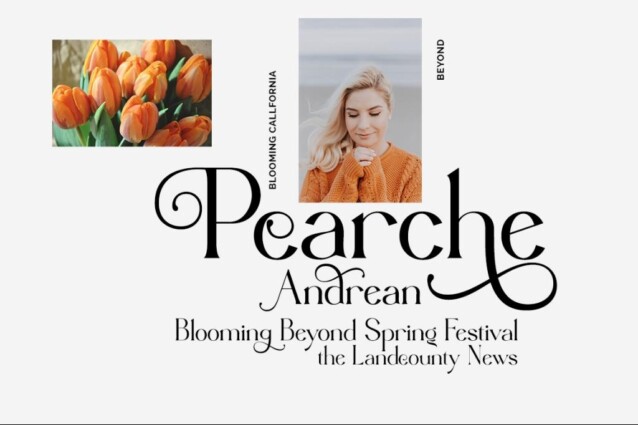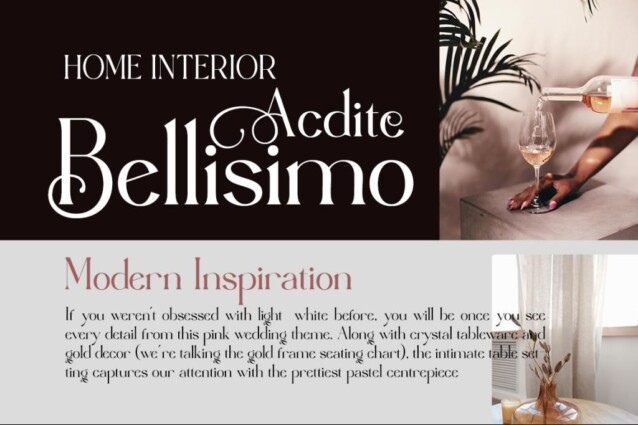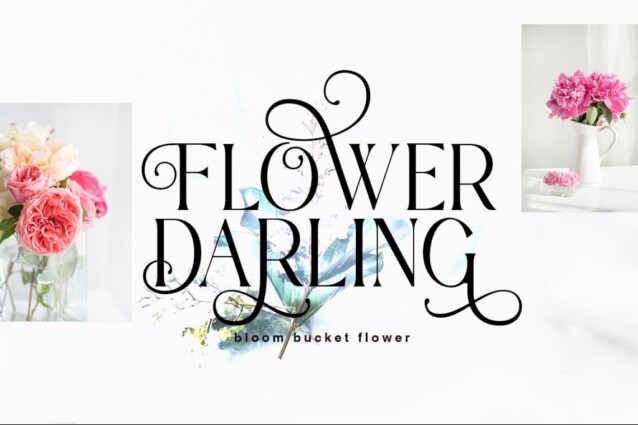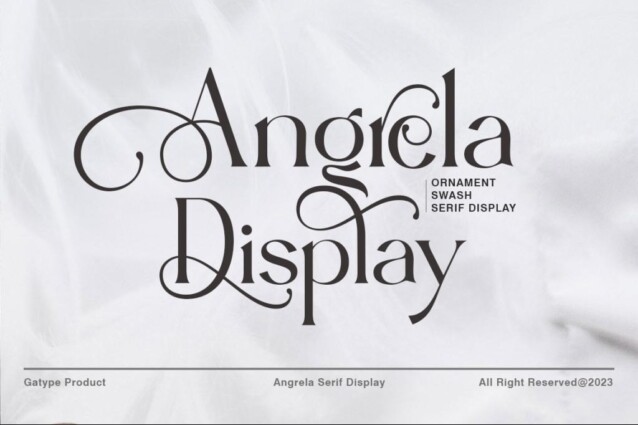
Angrela Display Font
Angrela Display Font is modern and elegant serif font designed by Gatype with lovely ligature. Great for use for fancy themed projects, branding projects, Magazine, Social Media, Branding, Logos, website headers or simply as a stylish text overlay onto any background image. and Many more need a Luxury touch.